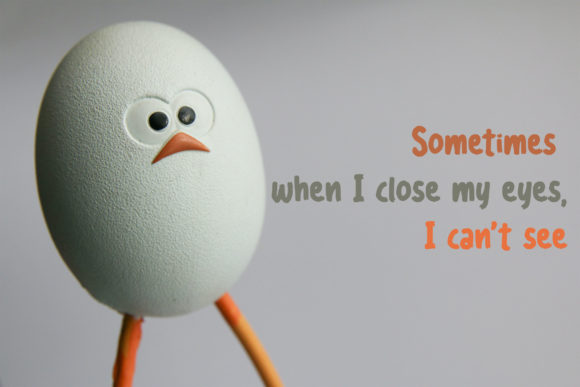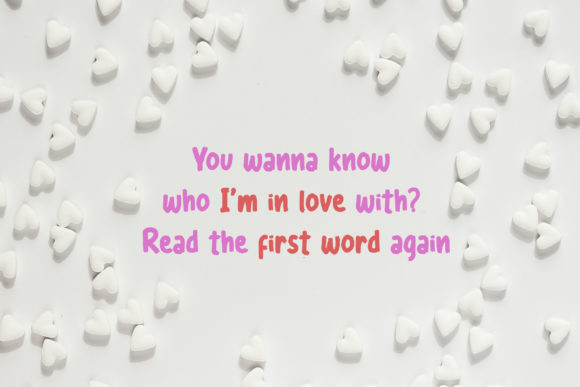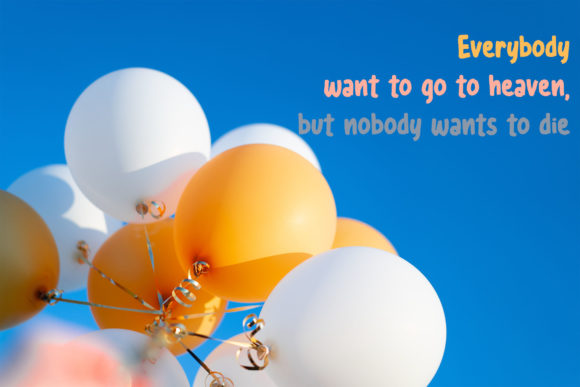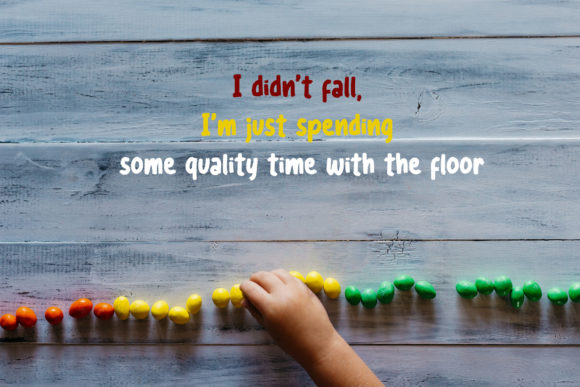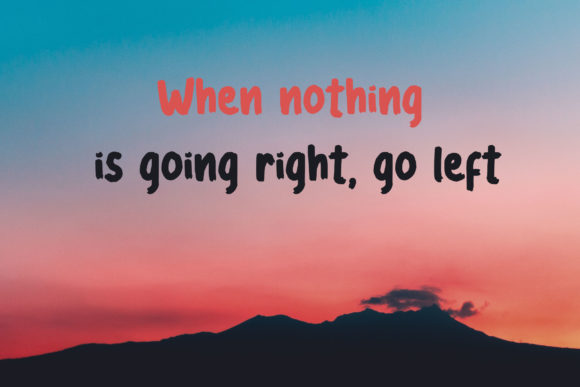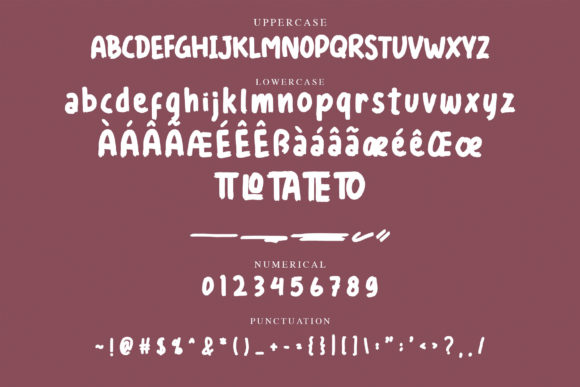
Introduction to Happyload Font
Happyload is a playful display font with a friendly and fun style.
It is made with scratched characters and can be applied to support the graphic appearance of any product This font is very nice for making previews and covers designs, cute logos, shirts, and other graphic needs.
Key Features of Happyload Font